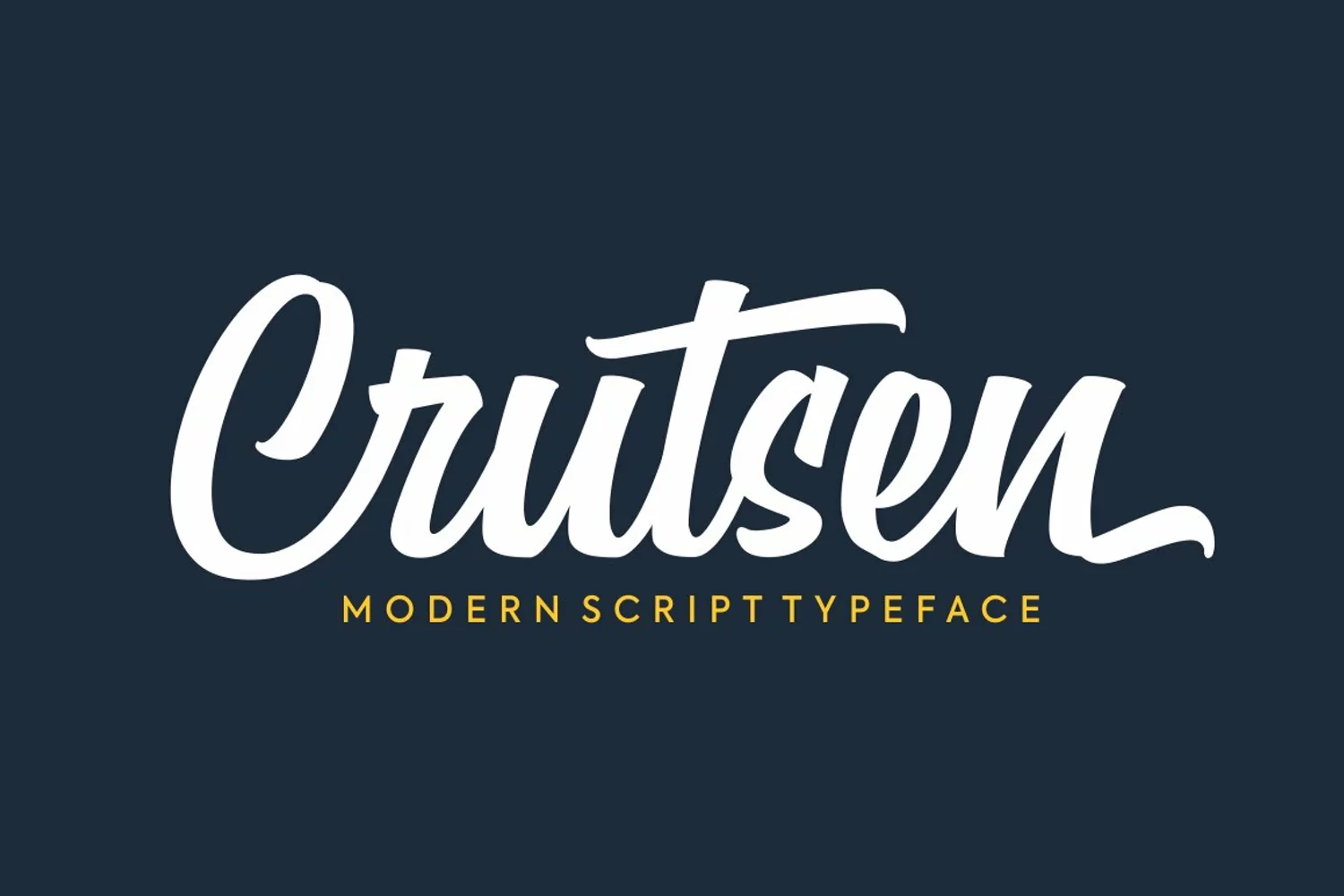
Crutsen
modern script typeface with sense of calligraphy
style comes with clean style finishing. Some of letters have an
alternative character especially on ascender, descender and also
lowercase. This typeface is great for Logotype, Poster, Digital
Lettering Arts, Clean Design, Branding Design, Signs, etc.
• Stylistic Alternate
• Stylistic Set
• Contextual Alternate